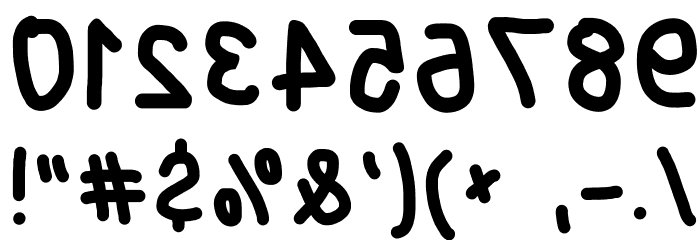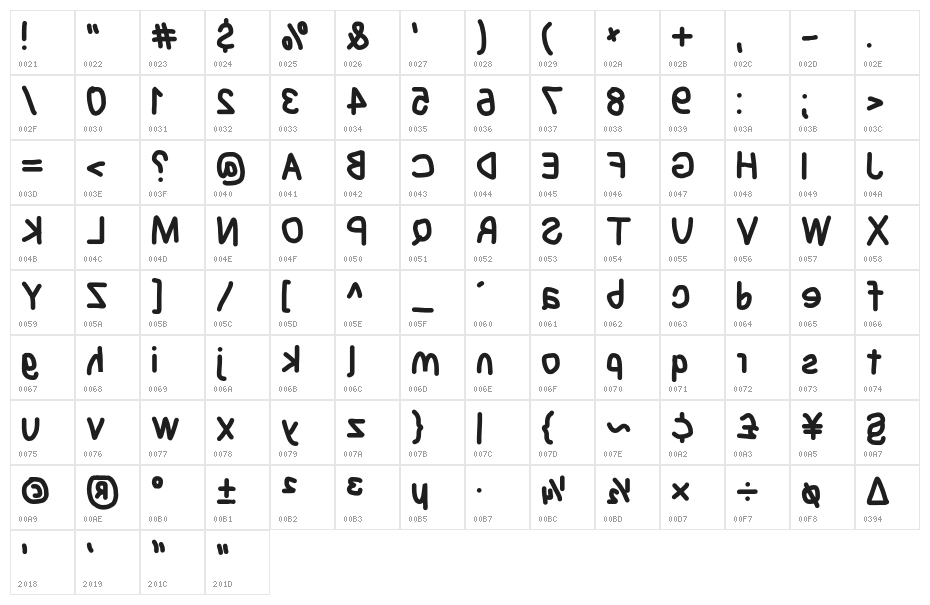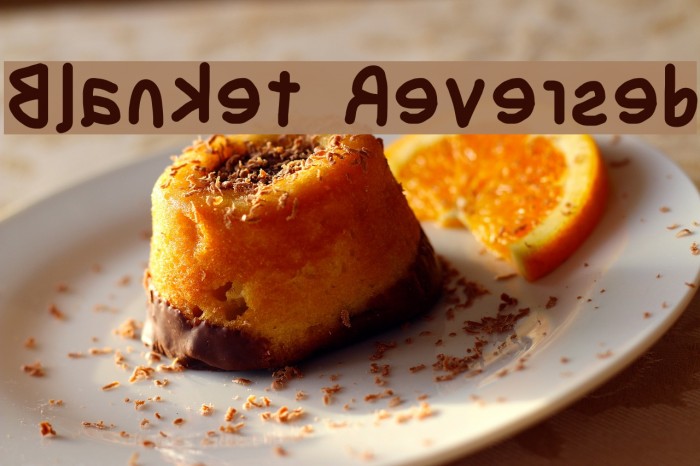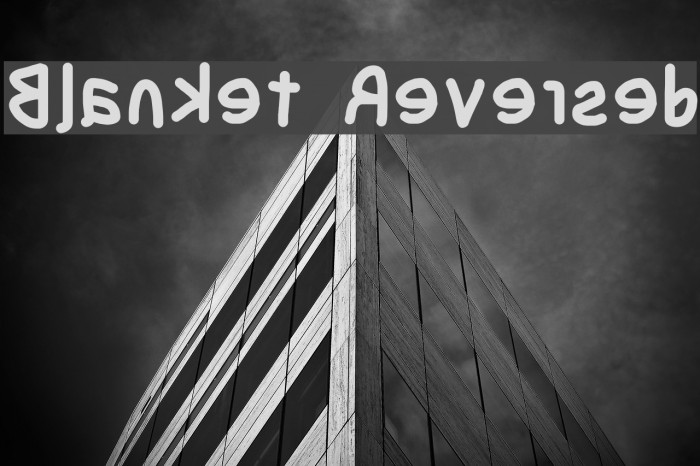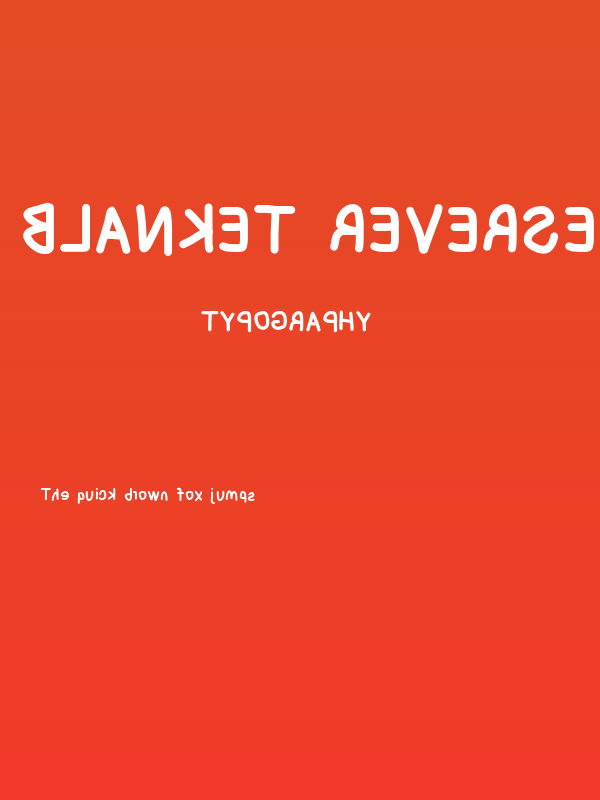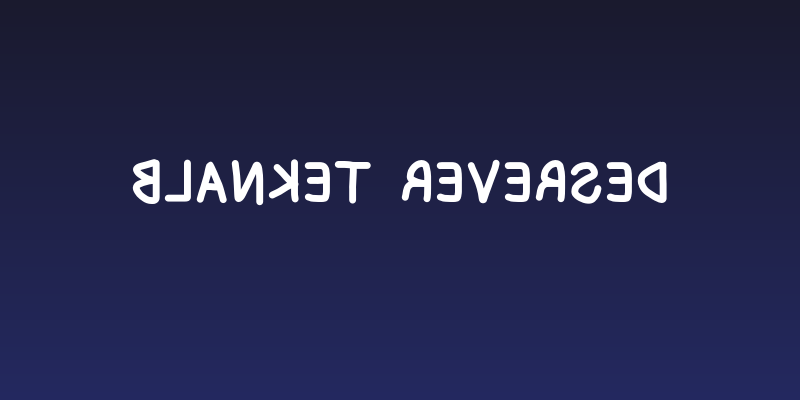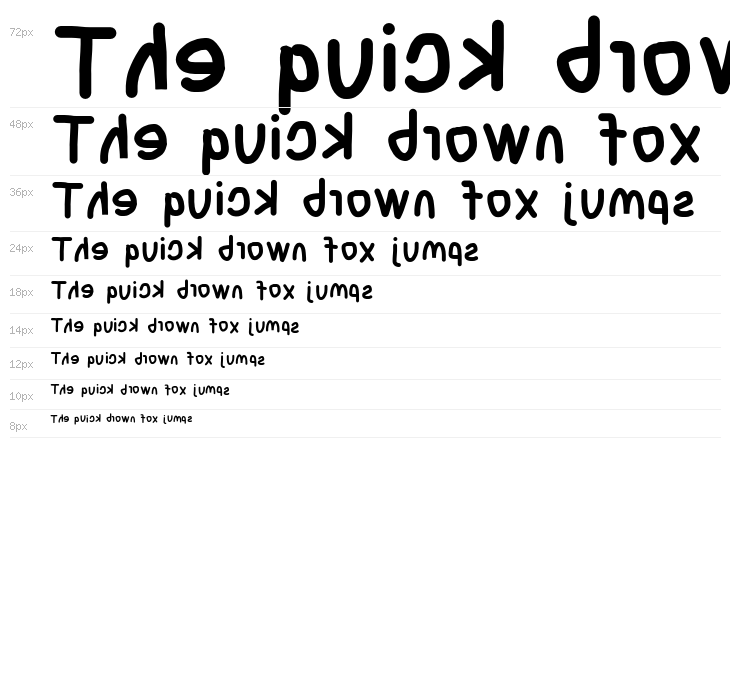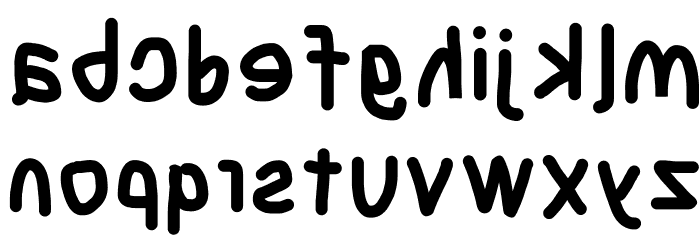
Blanket Reversed Font
Blanket Reversed Description
This playful and quirky font features a handwritten style with a reversed orientation, giving it a unique and eye-catching appearance. The characters are bold and rounded, with a consistent thickness throughout, creating a friendly and approachable feel. The letters have a slight tilt, adding to the casual and informal vibe. This font includes a full set of uppercase and lowercase letters, numbers, and a variety of special characters, making it versatile for different design needs. The spacing between characters is normal, ensuring readability while maintaining its distinctive style.
| Proposed Projects | Ideal for creative projects such as children's books, playful branding, greeting cards, and informal invitations. |